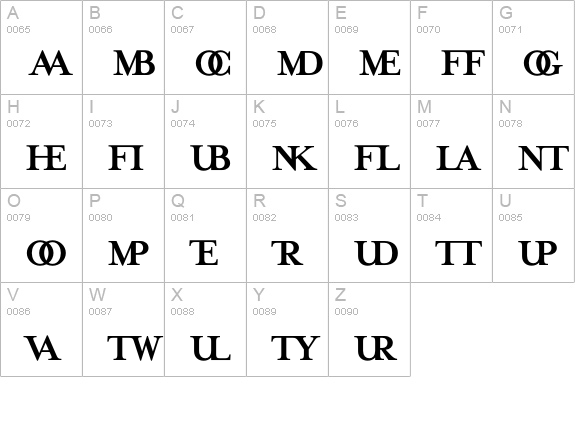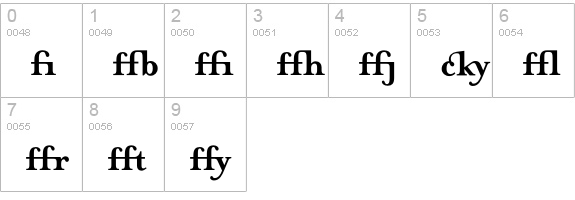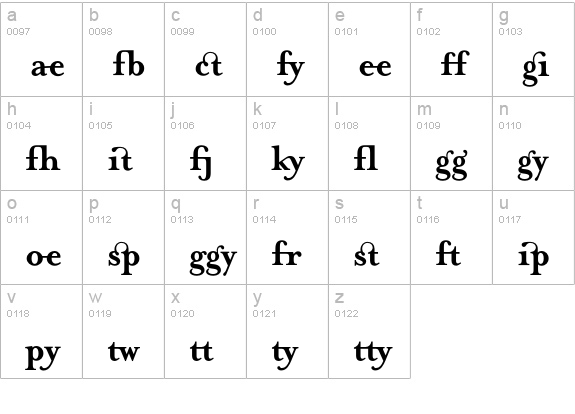
MrsEavesJustLigBold Font Details
MrsEavesJustLigBold font is a timeless and elegant typeface that exudes sophistication and charm. Its bold weight adds a touch of modernity while still maintaining a classic feel. Perfect for adding a touch of refinement to any project, this font is versatile and easy to read. The best part? MrsEavesJustLigBold font is available for free download at FontsMarket.com. Whether you're working on a professional design project or simply looking to elevate your personal creations, this font is a must-have in your collection. Don't miss out on the opportunity to enhance your work with this beautiful and freely accessible font.